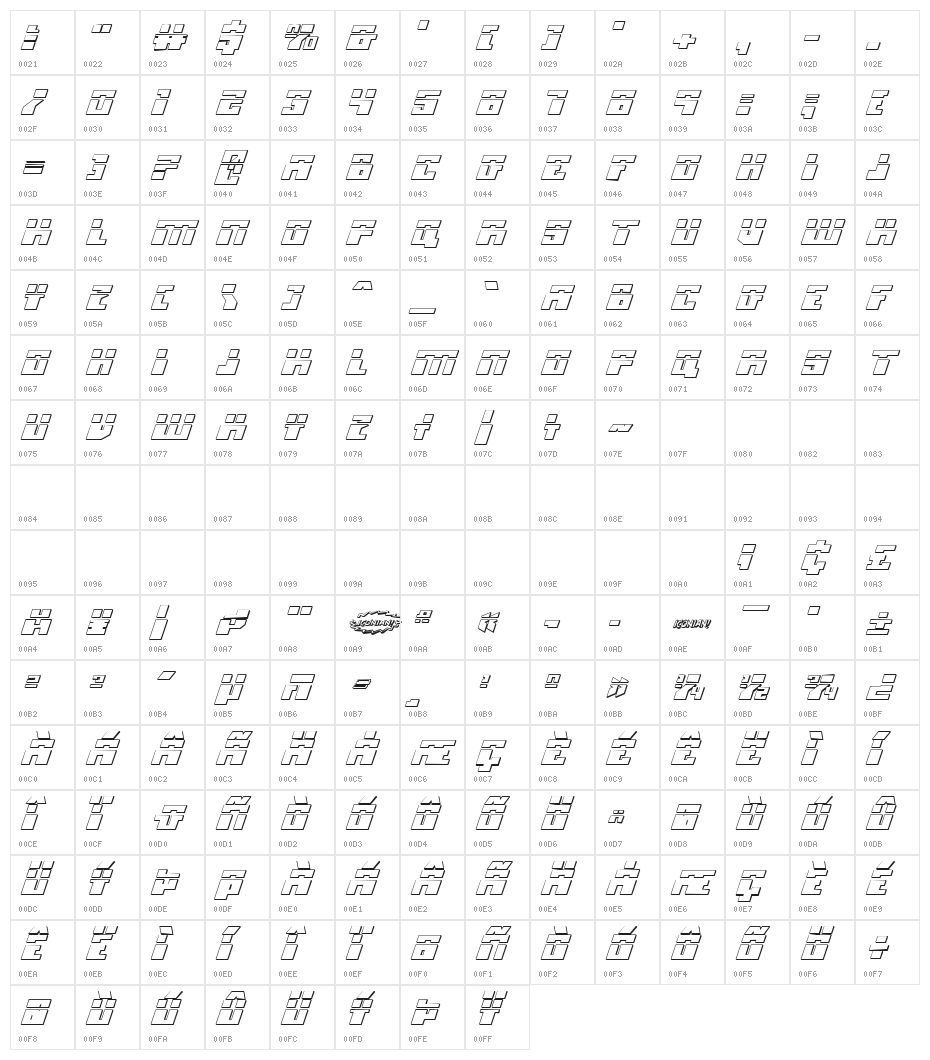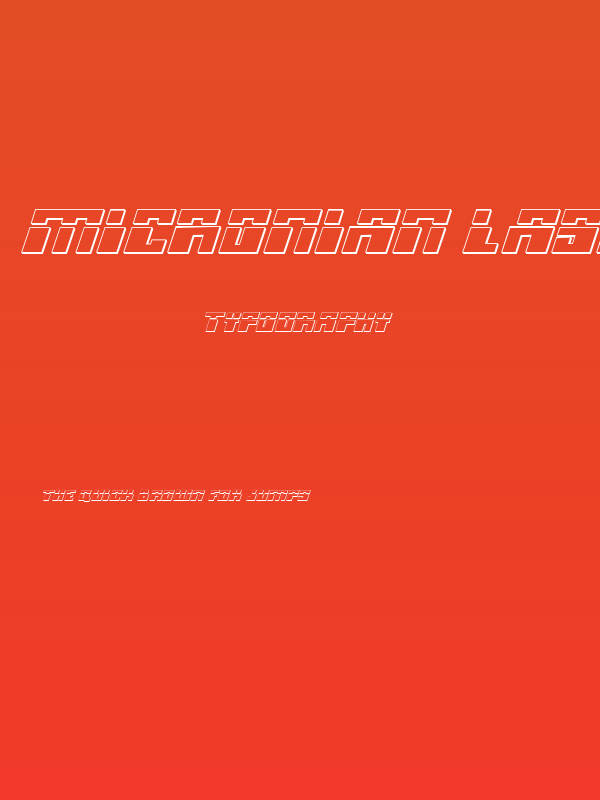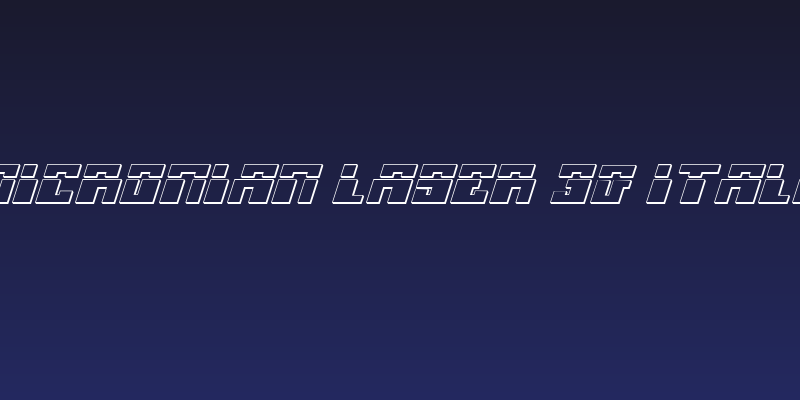
Micronian Laser 3D Italic Font
Micronian Laser 3D Italic Description
This font features a futuristic, three-dimensional design with a distinct italic slant, giving it a dynamic and forward-moving appearance. The characters are outlined with a bold, geometric structure, creating a sense of depth and movement. Each letter and number is crafted with sharp angles and clean lines, emphasizing a modern, tech-inspired aesthetic. The font's unique style is further enhanced by its consistent use of negative space, which adds to its readability and visual impact. The special characters are designed to match the overall theme, maintaining the same angular and bold characteristics.
| Proposed Projects | Ideal for sci-fi themed projects, tech branding, video game titles, and futuristic posters. |